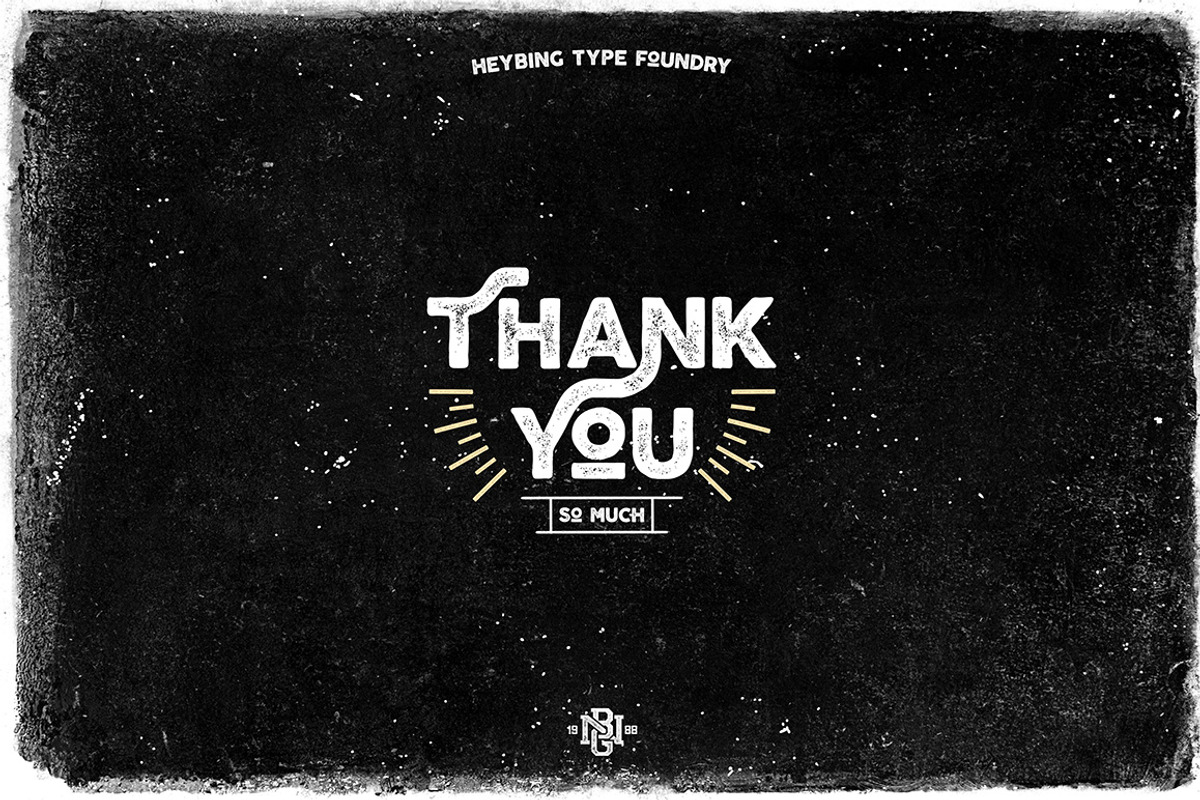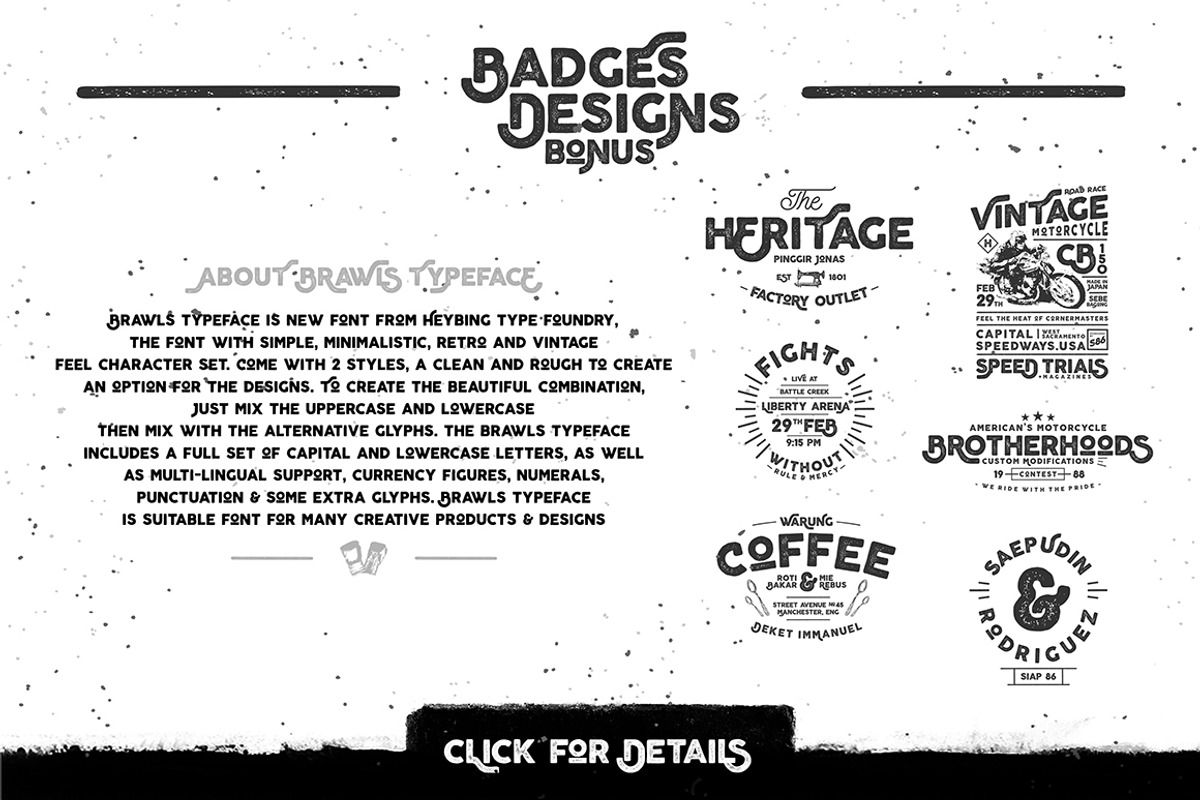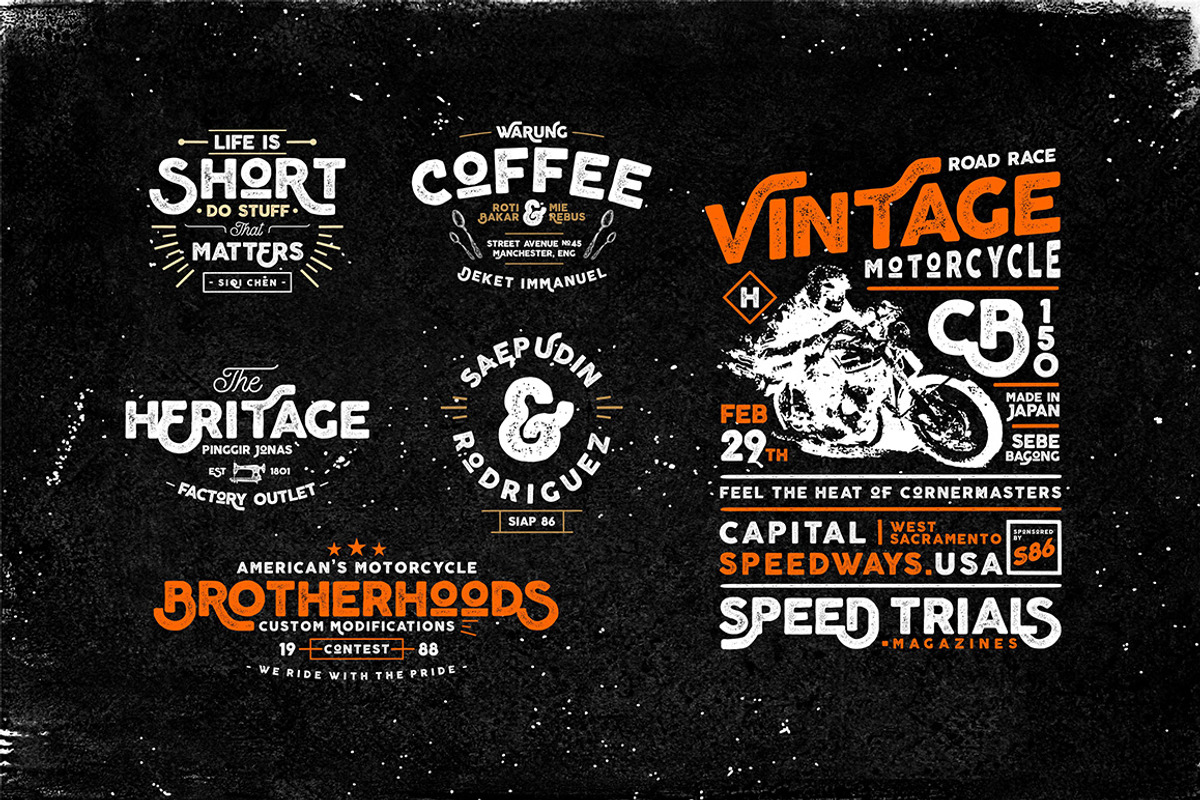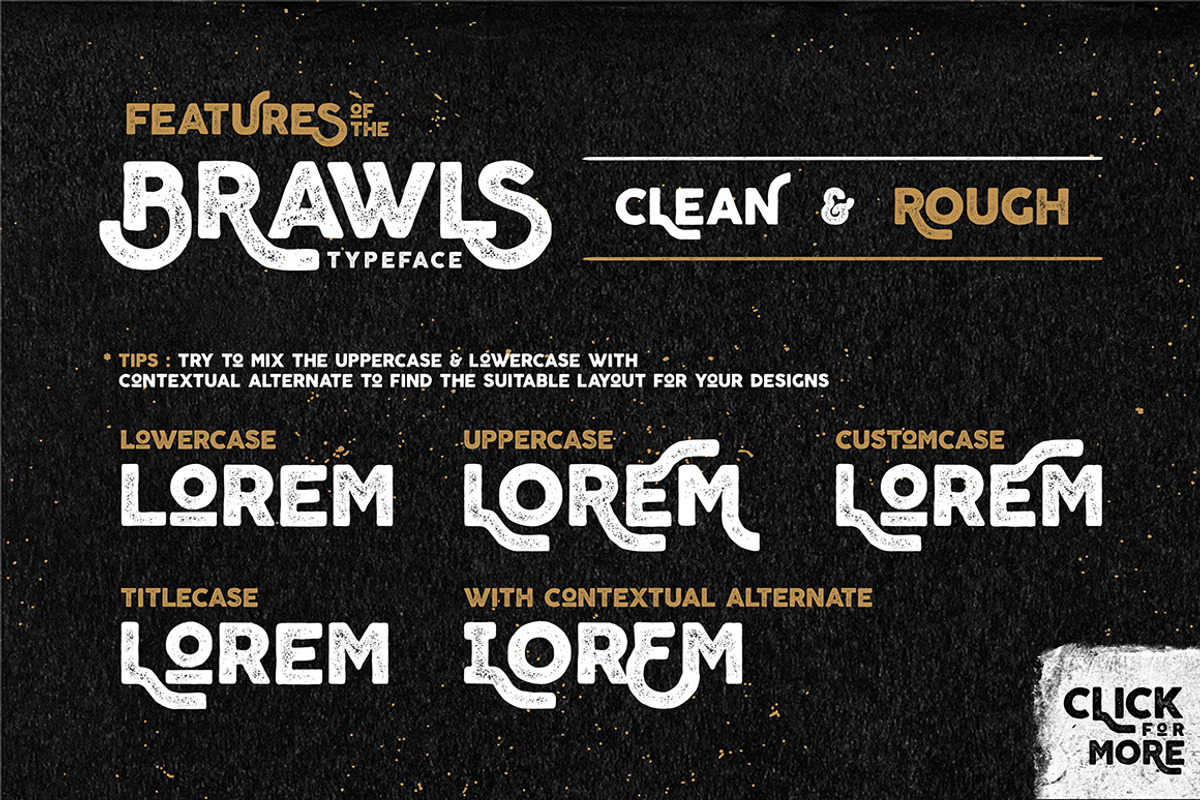
Brawls Typeface + Bonus
Brawls Typeface + Bonus by Heybing Supply Co. is a font selected for branding, posters, packaging, typography.
- The brawls typeface includes a full set of capital and lowercase letters, as well as multi-lingual support, currency figures, numerals, punc
Why Brawls Typeface + Bonus is worth a look
Brawls Typeface + Bonus by Heybing Supply Co. fits naturally into Branding, posters, packaging, typography.